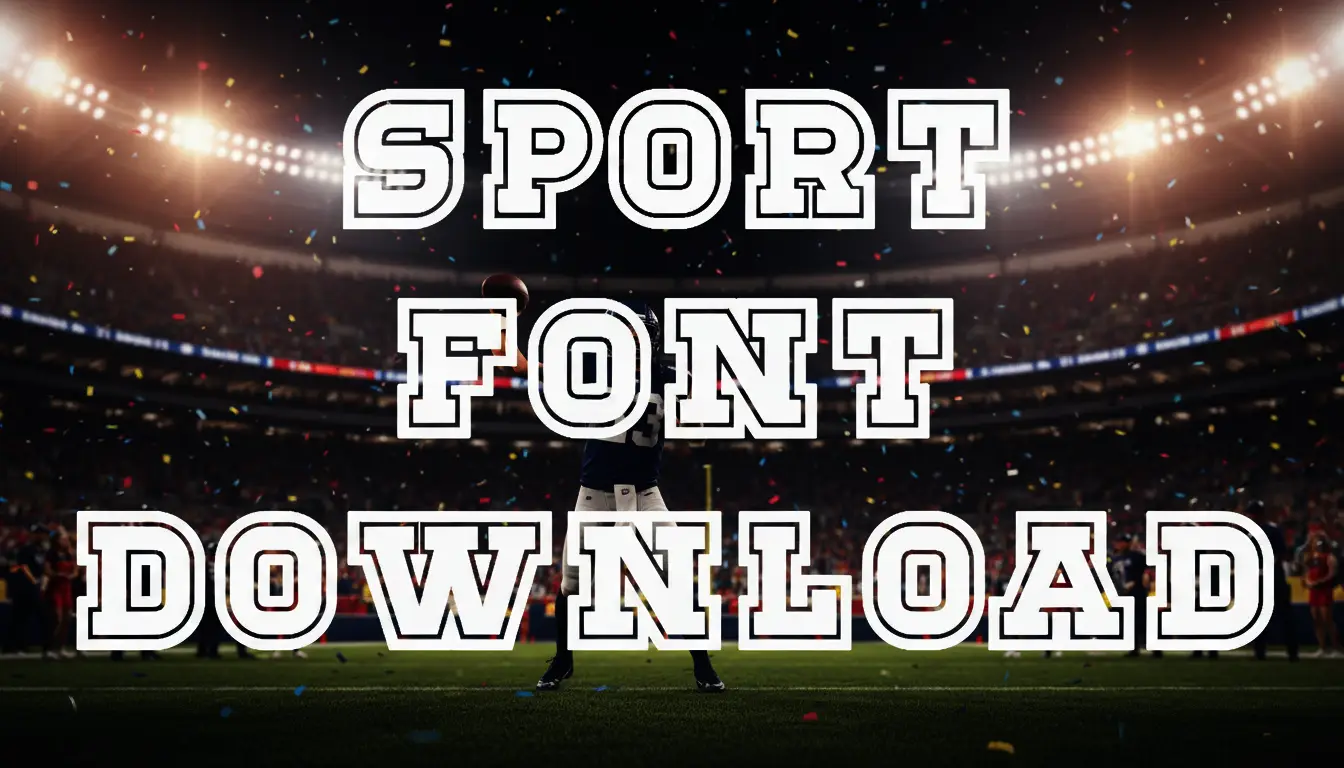
Sport Font
Sport Font Preview
Sport
Sport is a fancy font designed by Vladimir Nikolic. It's a decorative display font with plenty of personality, made to grab attention. The free download includes two styles, and you can try every one of them with your own text in the preview above.
What You Can Type With Sport
You get every letter from A to Z in both cases and all the numbers from 0 to 9, which means Sport can handle full sentences, dates and prices. Common punctuation such as &, !, ? and $ is included as well. It has 8 accented letters, but not the full set for Spanish or French, so test any non-English words first.
Where Sport Works Best
Think of Sport for posters, logos and eye-catching headlines. Use it for one standout word or headline and let simpler fonts handle the rest. Because the family has more than one style, you can mix them in a single design for headings, subheadings and highlights.
Does Sport support accented letters?
Partly. Sport has 8 accented letters, but not the complete set for Spanish, French or German. Type your words in the preview above to check before you use it.